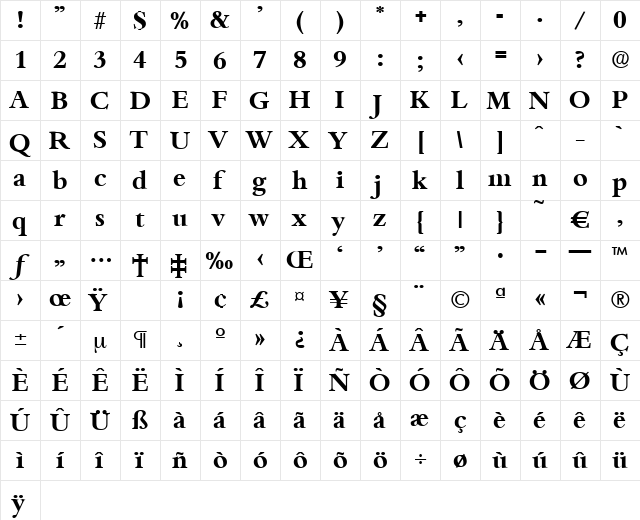
Bamberg-DemiBold Regular
Design Context for Bamberg-DemiBold Typeface
Bamberg-DemiBold is a composed and adaptable typeface that performs quietly and consistently across a wide range of design contexts. The heavy weight commands attention and anchors typographic hierarchies.